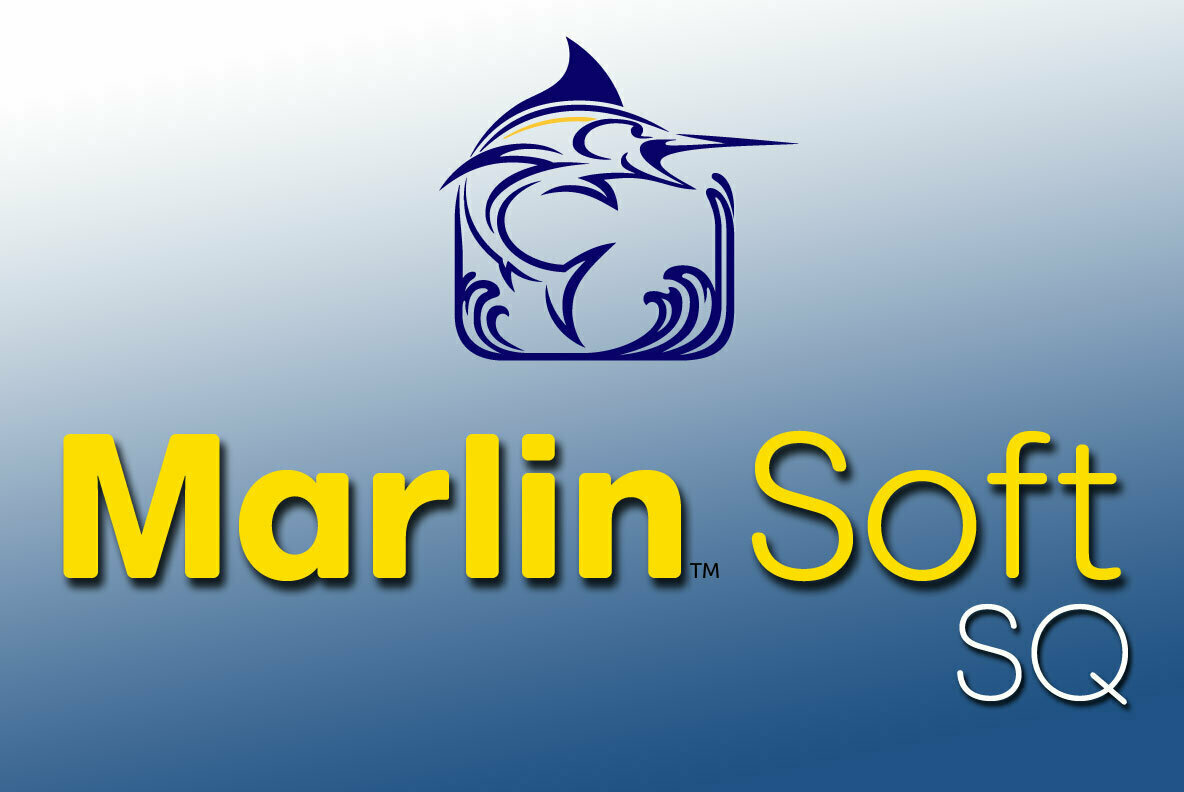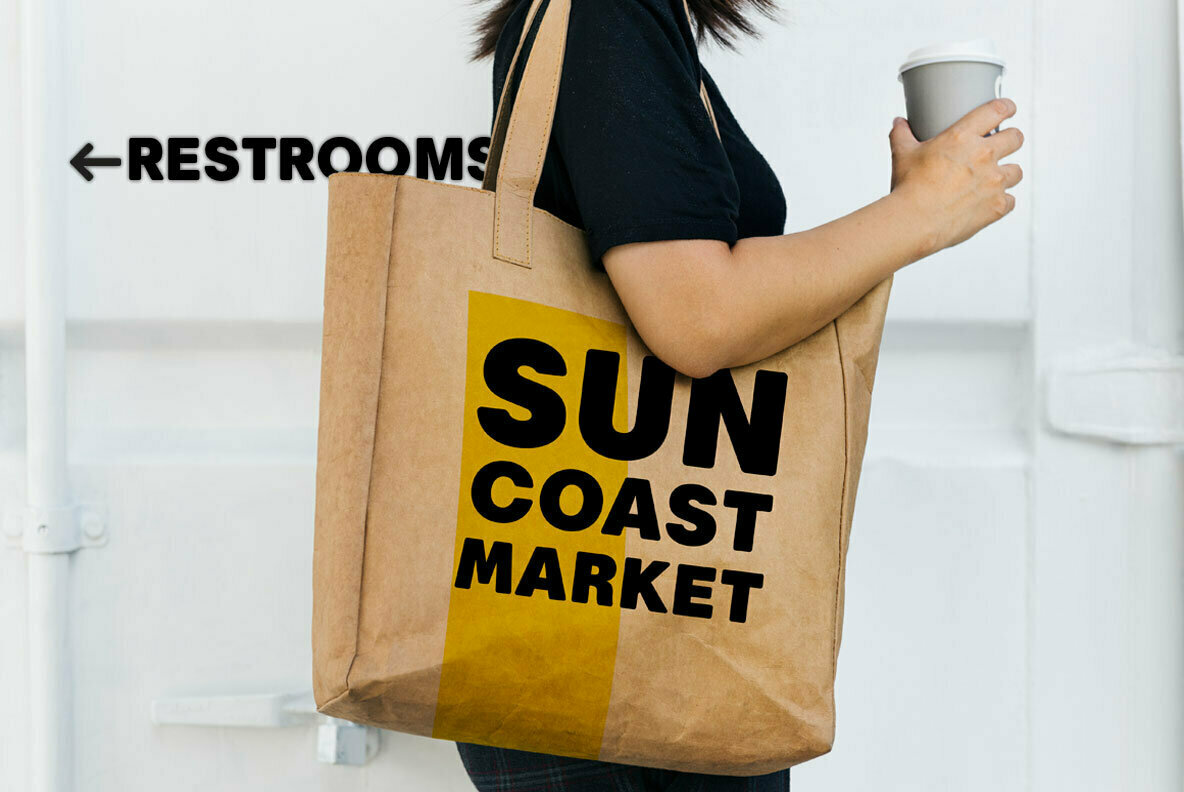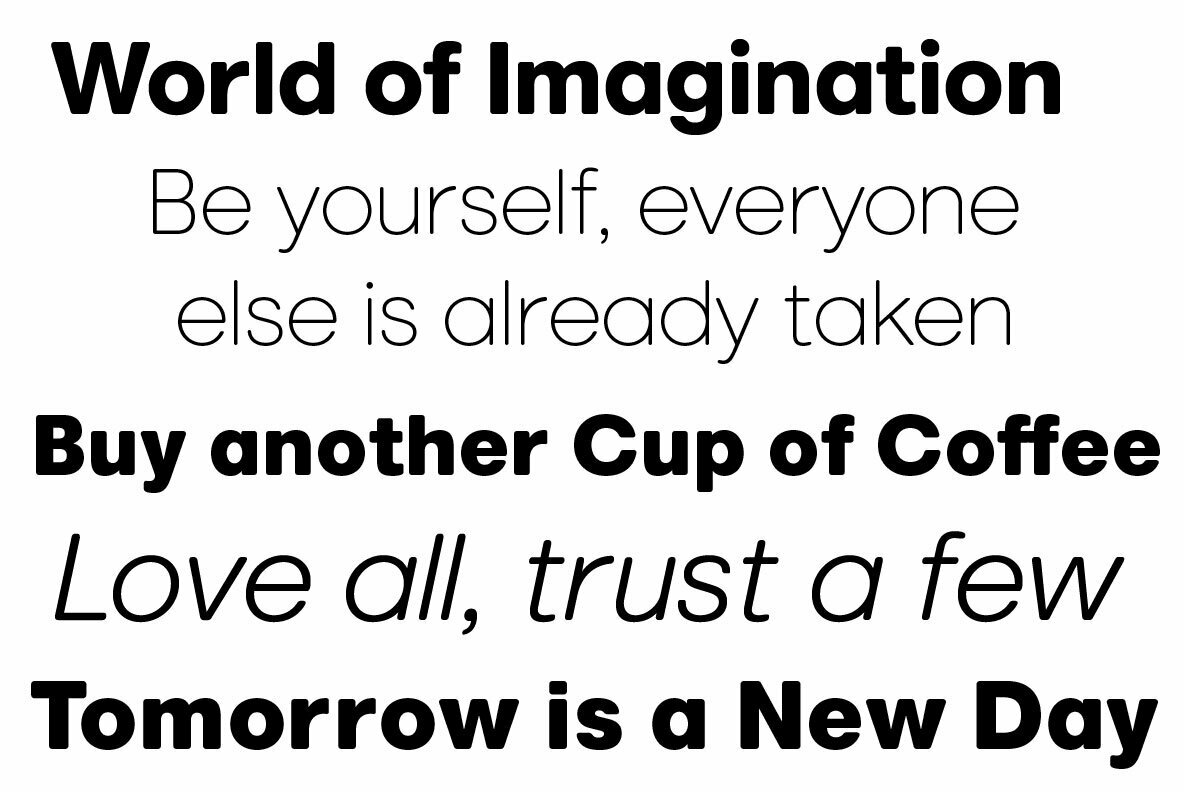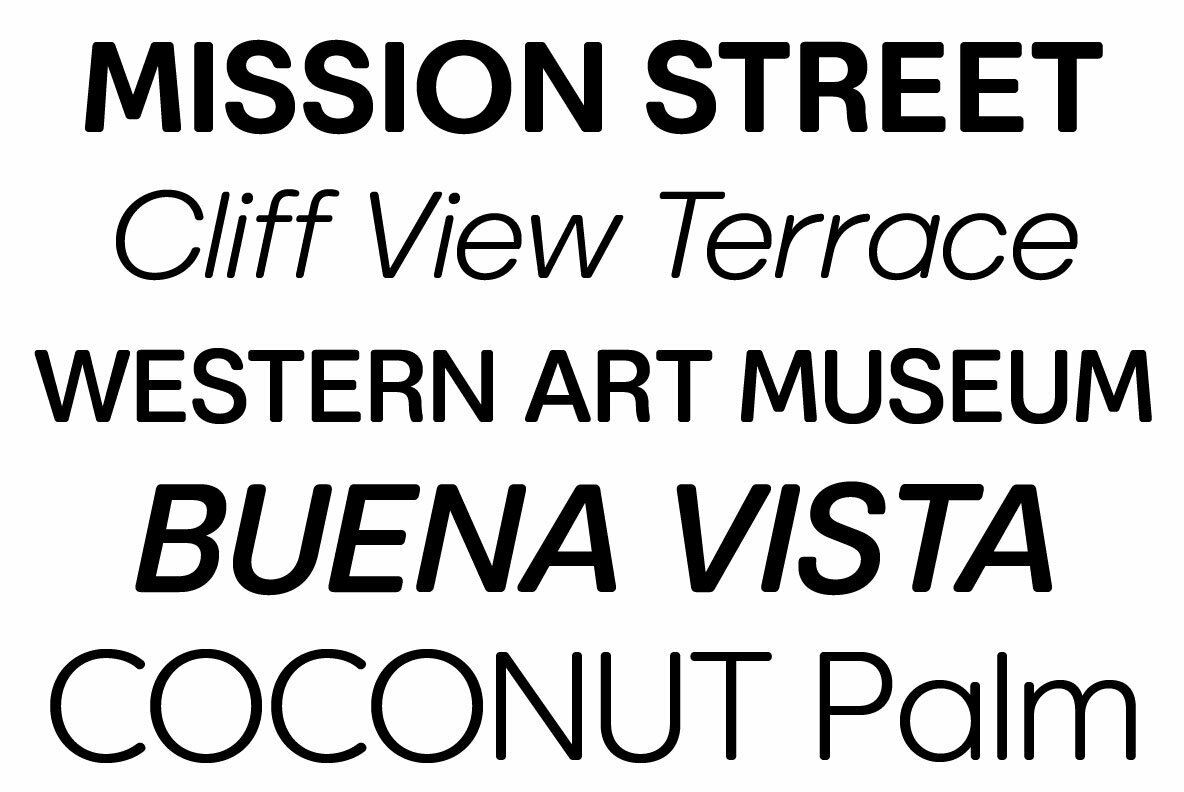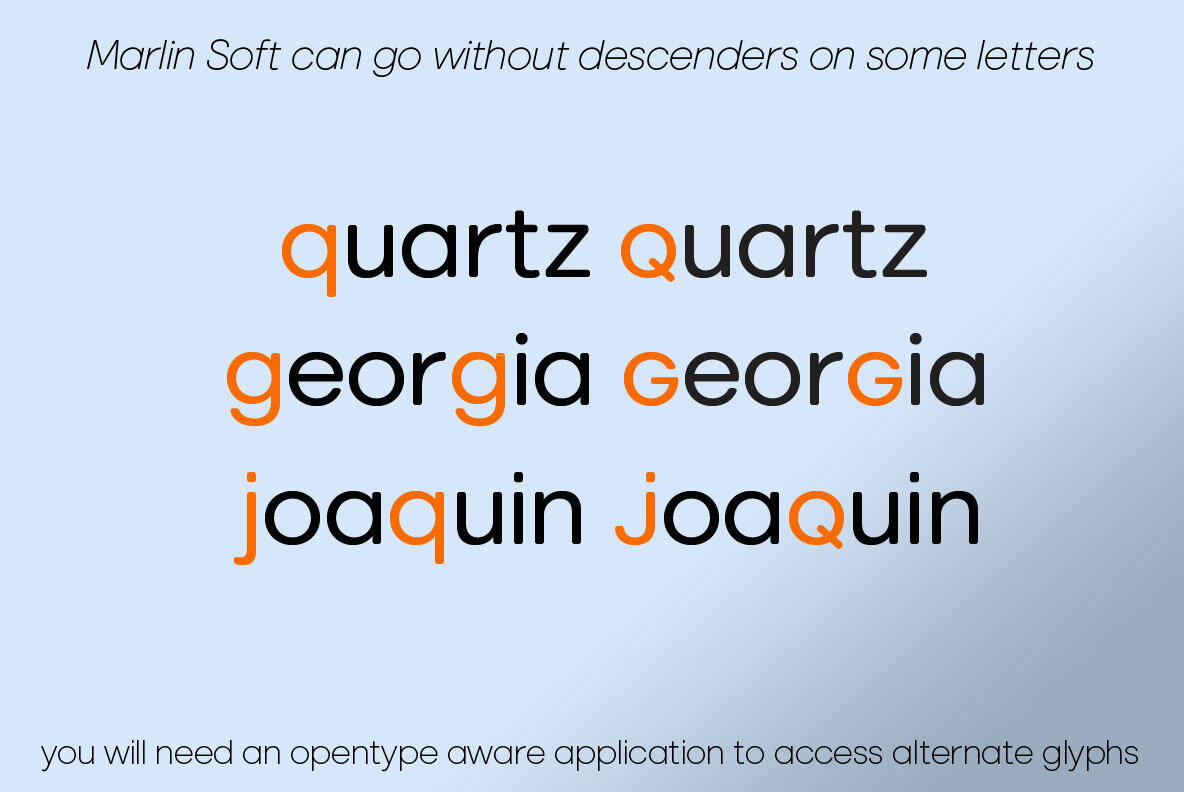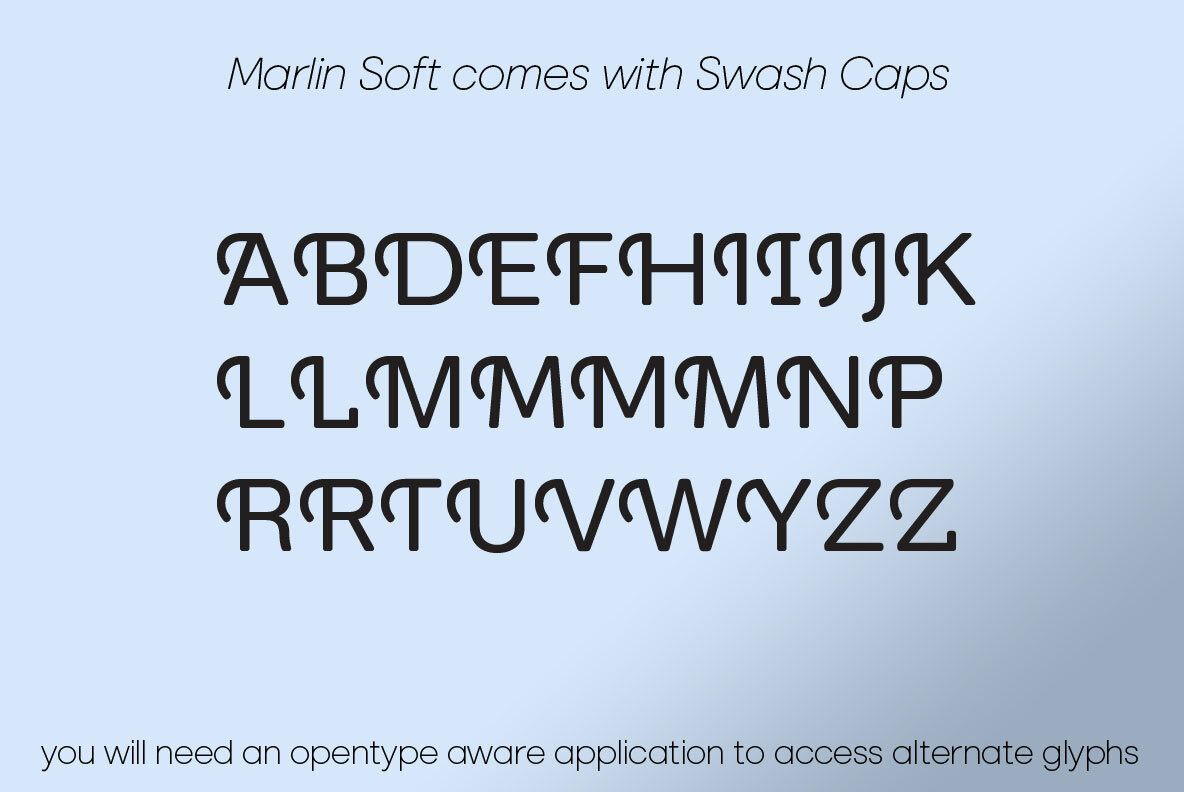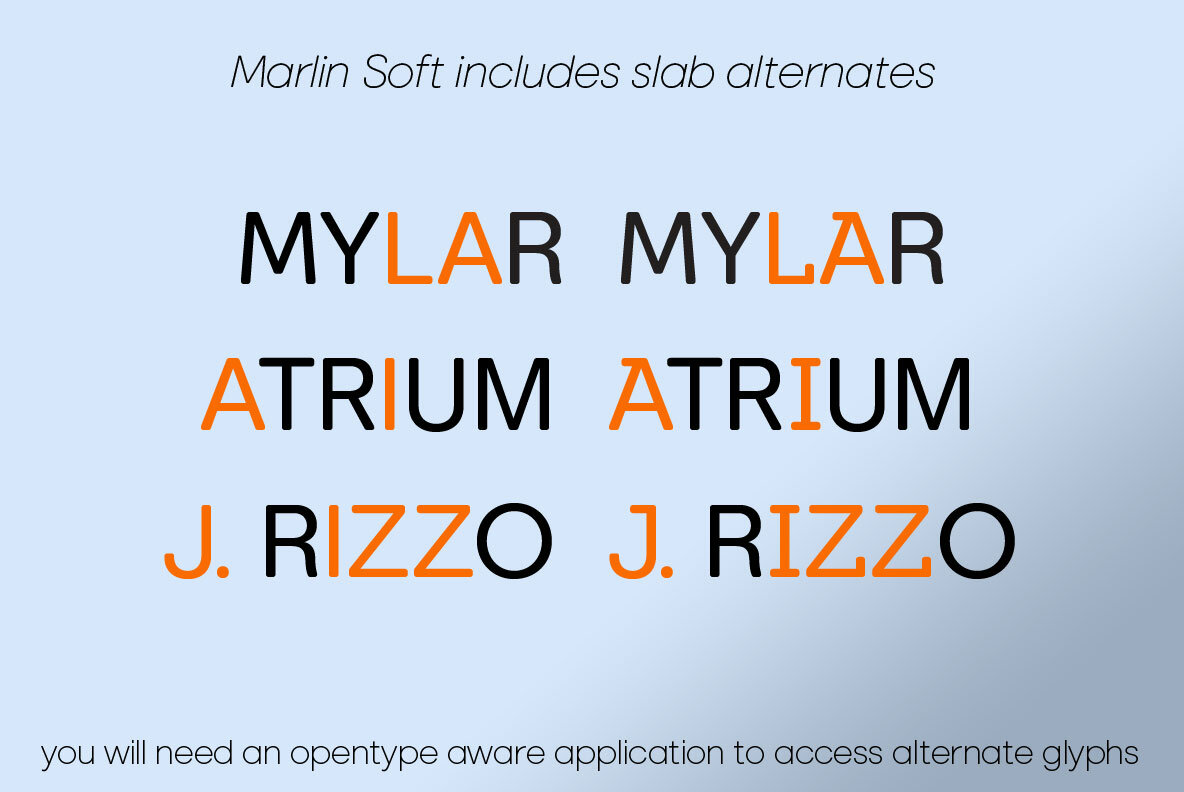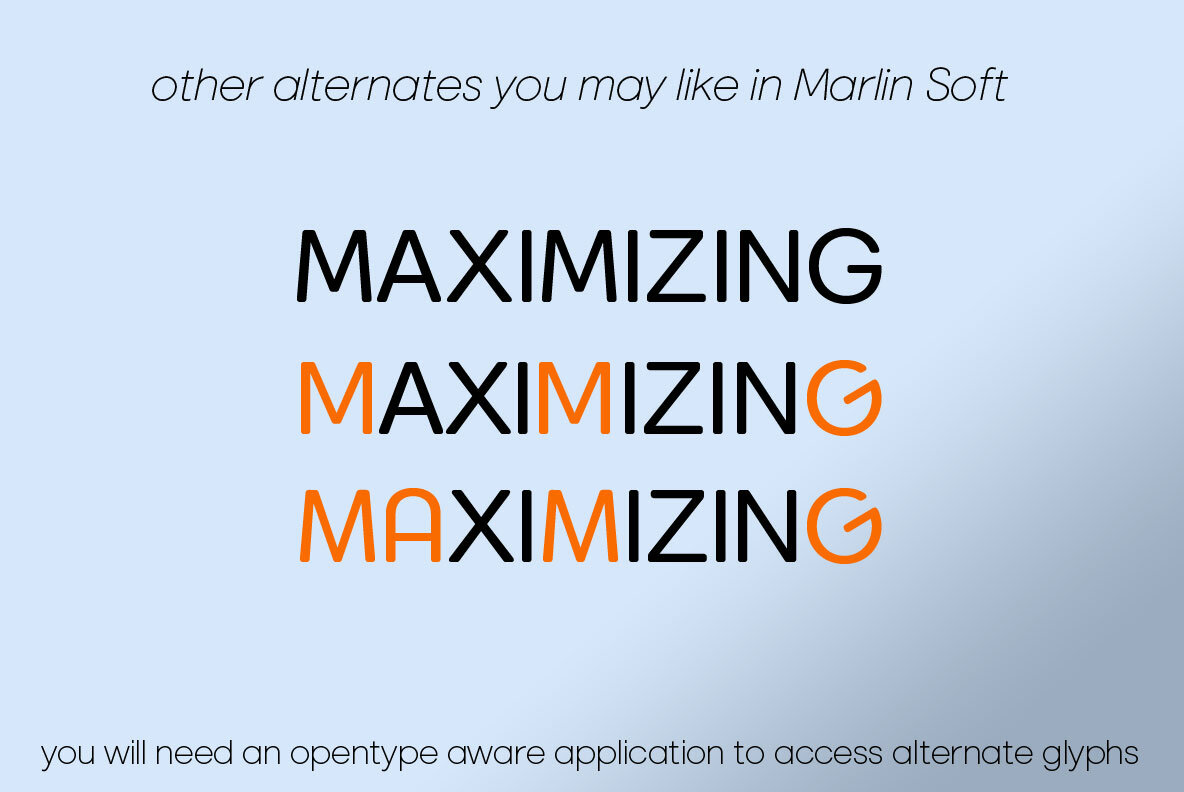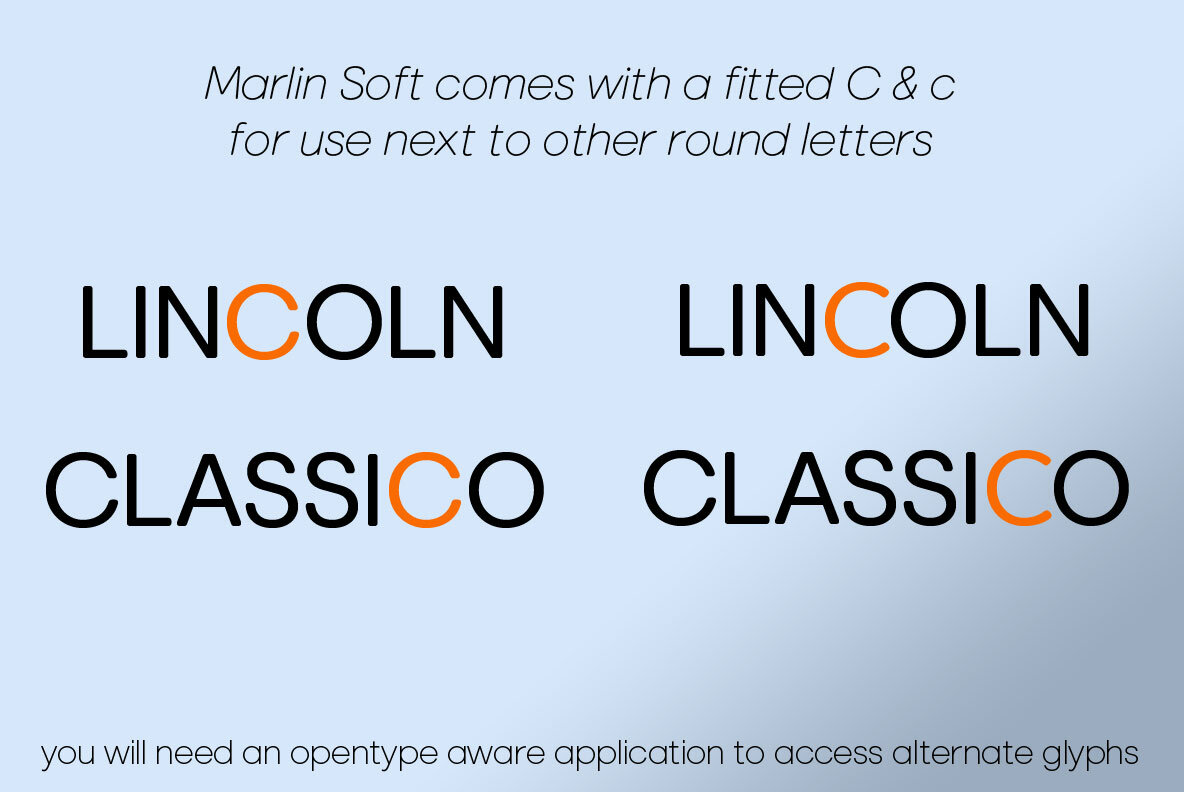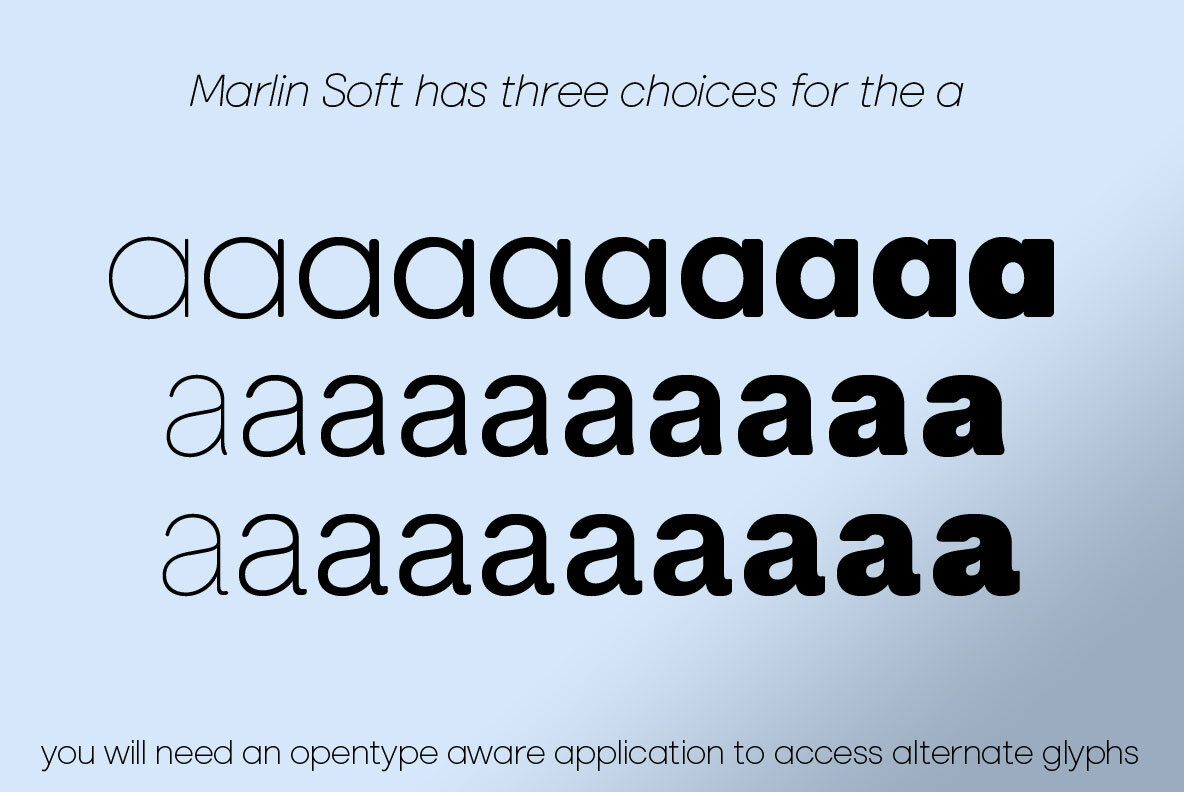
Marlin Soft Font
Whether you're looking for a round dot or a square dot Marlin Soft is one font family that delivers both set up as two separate fonts so you may change a whole page of text at one time.
Your projects are sure to look nice and cozy with the warm feeling Marlin Soft will bring to your product label or page design.